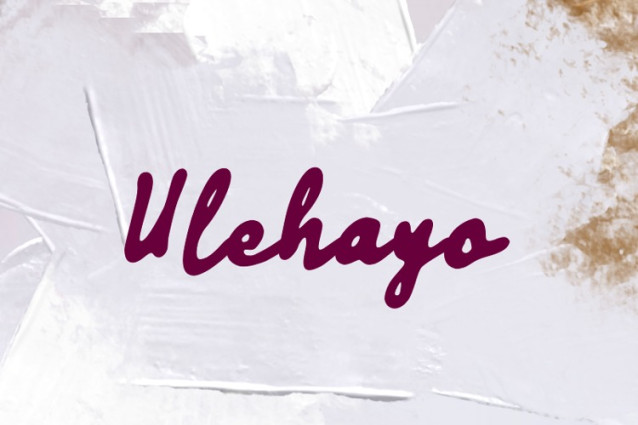
Ulehayo Font
Ulehayo Font, is a simple and friendly handwritten font. Its natural and unique style makes it incredibly fitting to a large pool of designs. The only limit is your imagination!